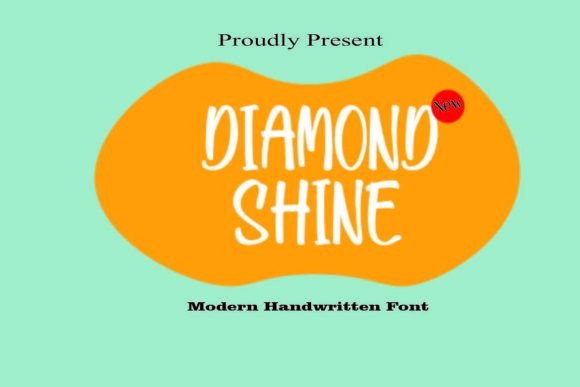
Unleash the Power of Expression with Diamond Shine: The Enchanting Script Font for Digital and Print Creations
Step into the realm of captivating typography with Diamond Shine, a captivating script font that dances with elegance and versatility. Inspired by the beauty of handwritten letters, Diamond Shine gracefully intertwines aesthetics and functionality, promising to elevate your creative projects to new heights of sophistication and originality.
Journey through a myriad of creative possibilities with Diamond Shine, a font family that seamlessly adapts to the digital and print realms. Its enchanting strokes bring a touch of personalized charm to websites, branding designs, and social media graphics, while its exquisite presence adorns stationery, packaging, and apparel with a unique flair.
Embrace the Allure of Diamond Shine: A Font that Captivates and Inspires
1. Handcrafted Elegance: Diamond Shine's meticulously crafted characters exude the charm of handwritten notes, injecting a touch of intimacy and authenticity into your designs.
2. Versatile Performer: With its innate versatility, Diamond Shine effortlessly transcends boundaries, gracing both web and print projects with its timeless beauty.
3. A Myriad of Creative Expressions: Unleash your creativity with Diamond Shine, a font that lends itself to a symphony of design possibilities, from delicate wedding invitations to eye-catching social media graphics, and from polished branding materials to heartfelt greeting cards.
4. Power in Simplicity: Diamond Shine's minimalistic design philosophy empowers you to convey strong messages with understated elegance, allowing your content to shine without overpowering embellishments.
5. The Perfect Canvas for Your Vision: Diamond Shine provides the perfect foundation for your creative expressions, allowing you to paint your ideas onto its elegant strokes and bring forth masterpieces that resonate with your audience.